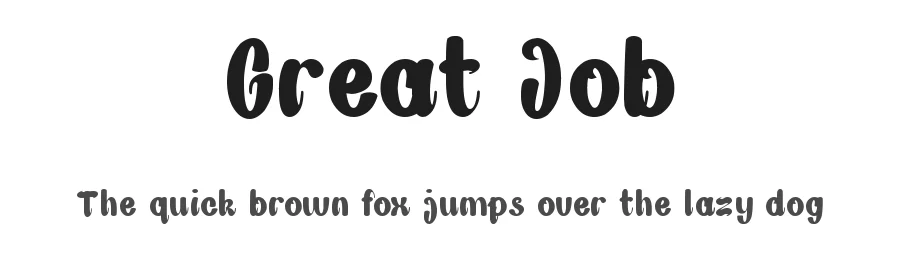
About Bird Feeder Font
Bird Feeder is a mixed case font with soft, rounded corners that give it a friendly, approachable feel. Use it in your projects to add some warmth and good-naturedness.
Bird Feeder Font is a script font that shines as a display or heading face. Pair it with a clean sans-serif or serif font for body text β the contrast creates a clear hierarchy while the two styles stay balanced and easy to read.